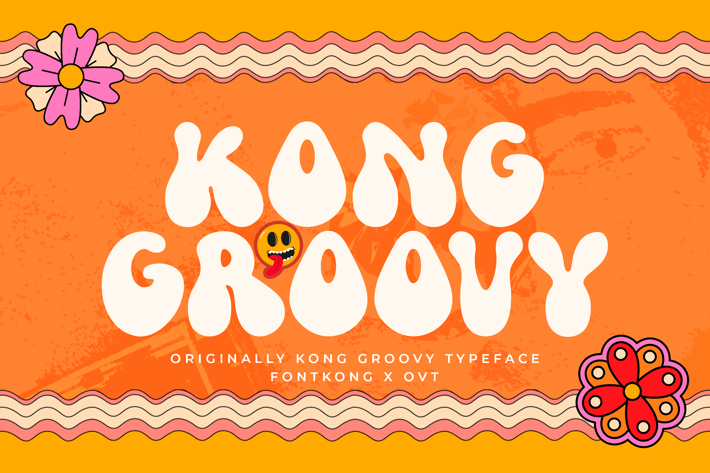
Kong Groovy - Original Typeface
Introducing "Kong Groovy," an original typeface that brings back the retro vibes of the groovy era. This typeface is perfect for designers looking to infuse their projects with a nostalgic and funky aesthetic. With its bold and flowing characters, Kong Groovy adds a playful yet stylish touch to posters, album covers, apparel designs, and more.
Kong Groovy is designed to stand out with its unique personality and readability. Whether you're creating a vintage-themed party invitation or a retro-inspired branding project, this typeface offers versatility and charm. It includes a full set of uppercase and lowercase letters, numbers, punctuation, and special characters to support various design needs.
Add a touch of nostalgia and creativity to your designs with Kong Groovy, the original typeface that celebrates the spirit of the groovy era.